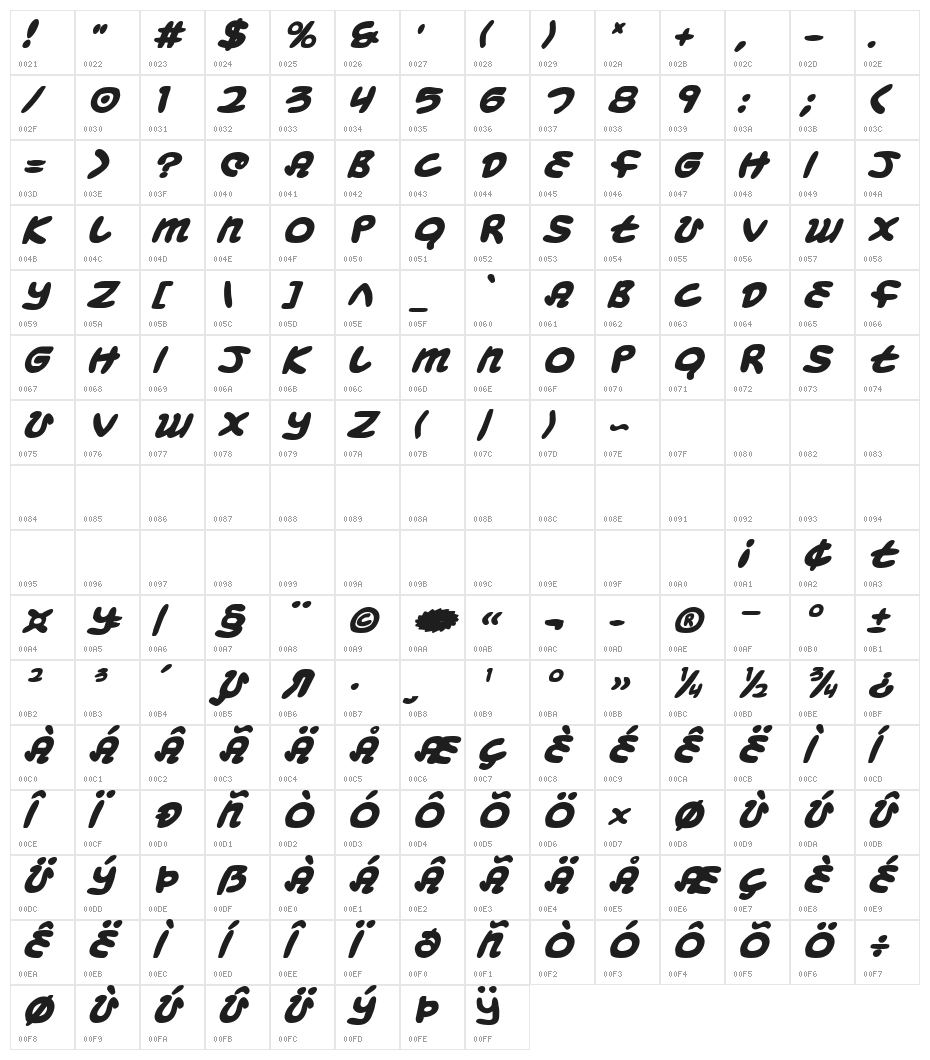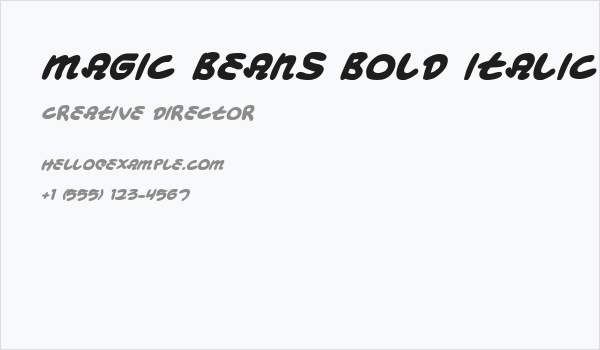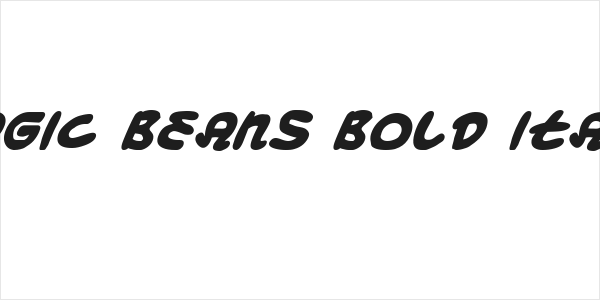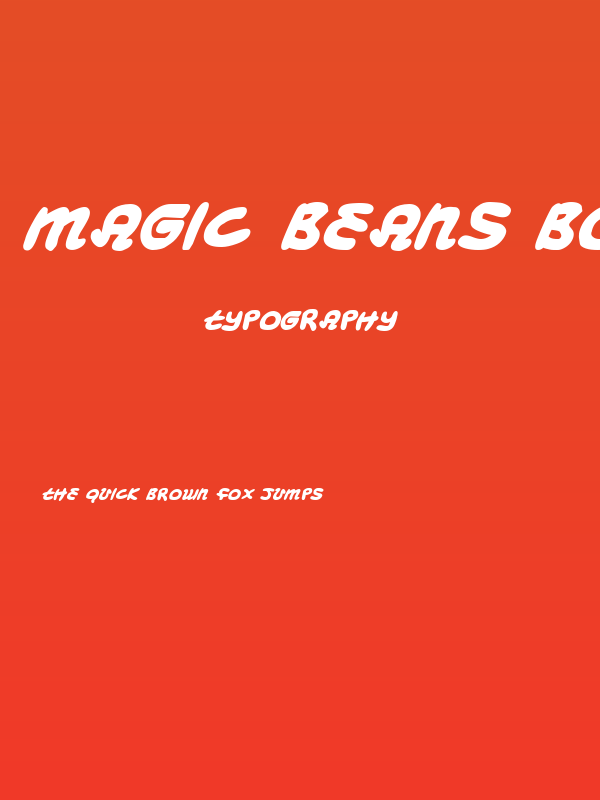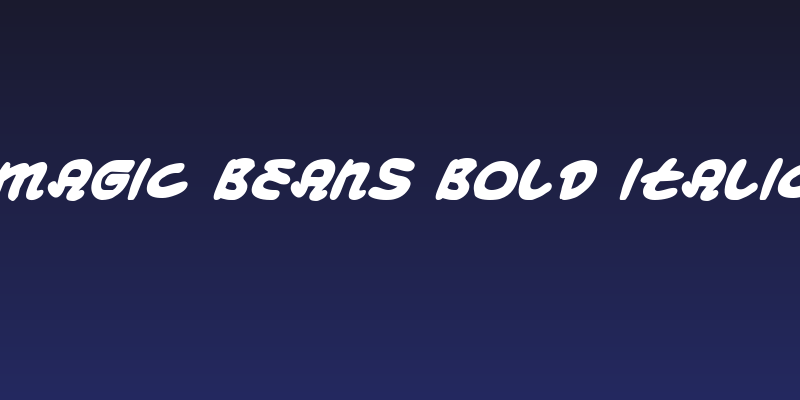
Magic Beans Bold Italic Font
Magic Beans Bold Italic Description
This font features a bold and italicized style with a playful and dynamic appearance. The characters are rounded and slightly slanted, giving a sense of movement and energy. The strokes are thick, contributing to its boldness, while the italic slant adds a touch of elegance and fluidity. The font maintains a consistent weight throughout, ensuring readability despite its decorative nature. It includes a full set of uppercase and lowercase letters, numbers, and a variety of special characters, making it versatile for different design needs.
| Overall Style | Playful and Dynamic |
| Proposed Projects | Ideal for branding, playful headlines, children's books, and creative posters. |